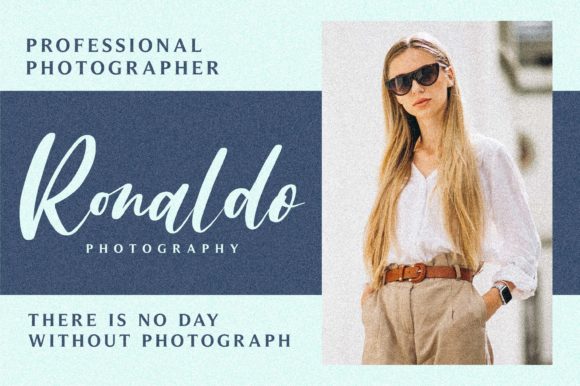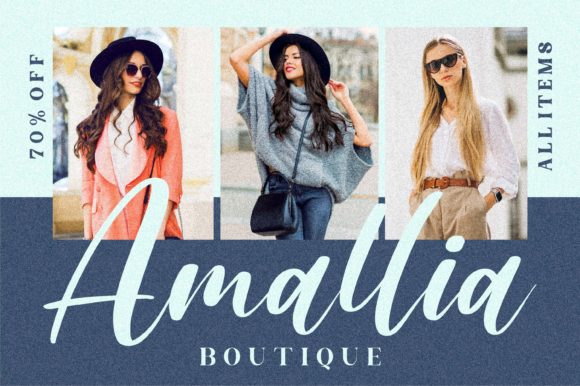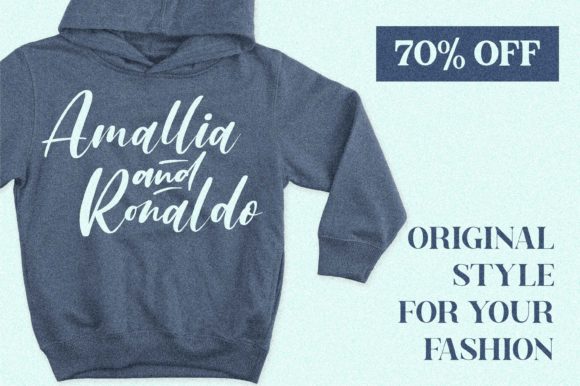
About Amallia and Ronaldo Font
Amallia and Ronaldo is a stunning combination of two elegant and dainty handwritten fonts. These fonts are designed to bring a touch of sophistication and charm to your designs. With their sweet and delicate swashes, they add a unique and original look that will elevate your crafty ideas.
Amallia and Ronaldo are perfect for a wide range of design projects, from letterheads and titles to stationery. Their versatility allows them to be used in various contexts, including wedding invitations, greeting cards, logos, branding, and more. The fonts’ dainty and elegant style adds a sense of refinement and beauty to your designs.
Both fonts have balanced proportions and smooth curves, creating a harmonious and visually appealing composition. They are legible and easy to read, ensuring that your message is conveyed effectively. Whether you’re creating a romantic wedding invitation or a sophisticated logo, Amallia and Ronaldo provide the perfect blend of elegance and creativity.
Embrace the beauty of Amallia and Ronaldo and let your creativity soar. These fonts will add a touch of class and sophistication to your crafty projects, leaving a lasting impression on your audience. Get ready to create stunning designs that showcase your unique style and creativity with Amallia and Ronaldo.